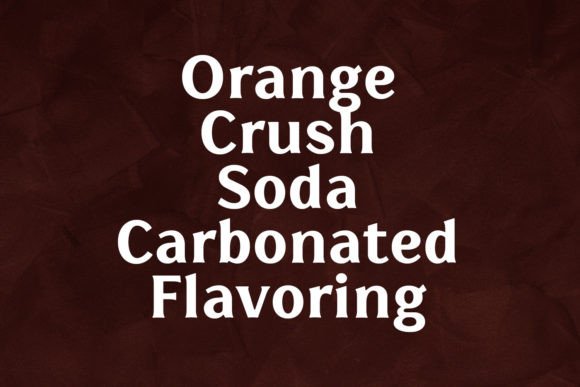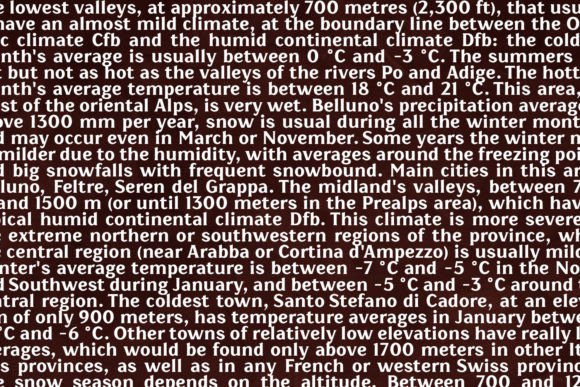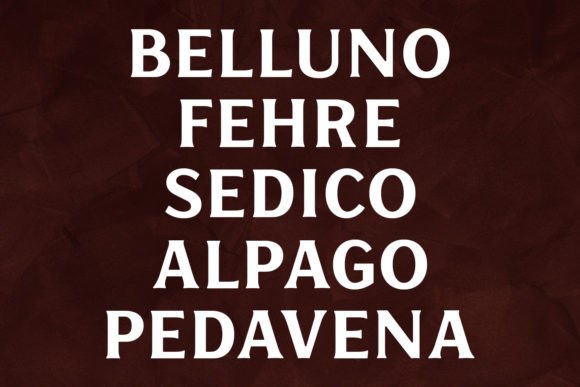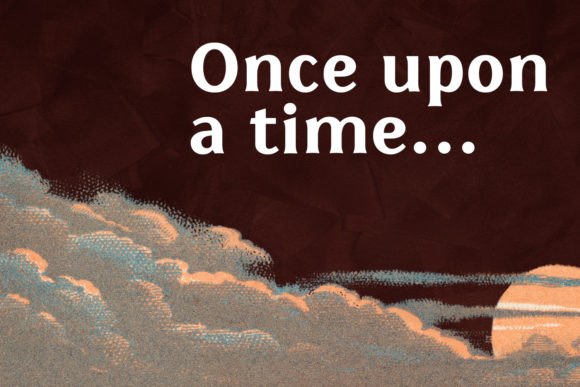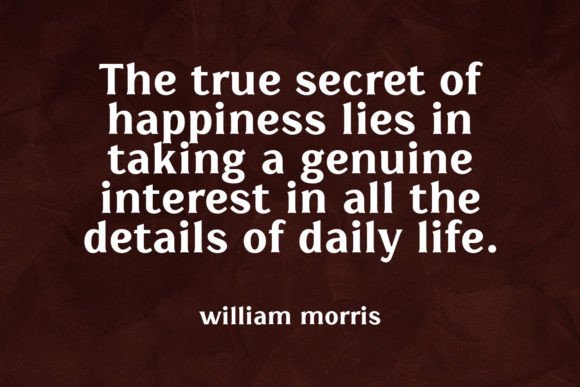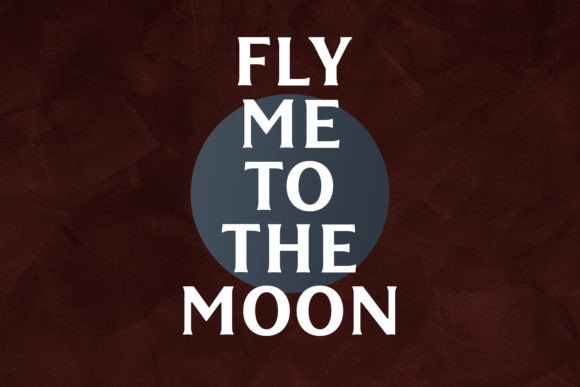
Introducing Falige Font: Elevate Your Designs with a Modern Twist
In the world of design, typography plays a crucial role in capturing the essence of a message. A font can make or break the visual appeal of a project, and that’s where Falige Font comes into play. With its modern, easy-to-spot aesthetic, Falige is poised to revolutionize the way you approach design. Whether you’re a seasoned designer or a crafty enthusiast, this versatile font is about to become your new best friend.
What is Falige Font?
Falige Font is a contemporary typeface that boasts a unique blend of style and legibility. Its clean lines, subtle curves, and carefully crafted letterforms make it an excellent choice for a wide range of applications. From magazines and crafts to invitations and social media posts, Falige is designed to adapt seamlessly to various design contexts.
Falige Features: What Sets it Apart
- Modern Aesthetic: Falige’s sleek design ensures that your work stands out in a crowded digital landscape. Its modern twist on classic typography principles makes it perfect for designers looking to infuse their projects with a fresh vibe.
- Ease of Recognition: The font’s easy-to-spot aesthetic is not just visually appealing; it’s also highly legible. This means that your message will be conveyed clearly, regardless of the medium or platform.
- Versatility: One of the key strengths of Falige Font is its versatility. It can be used across various mediums, including print and digital platforms, without losing its impact.
- Crafting and DIY Projects: For crafters and DIY enthusiasts, Falige offers a professional edge to handmade projects, such as invitations, greeting cards, and personalized gifts.
Why Choose Falige Font for Your Designs?
With an abundance of fonts available, why should Falige be your go-to choice? The answer lies in its ability to elevate your designs while offering flexibility and creativity. Here are a few compelling reasons:
- Enhance Readability: Falige’s design prioritizes readability, ensuring that your audience can easily digest the information you’re presenting.
- Express Your Creativity: The font’s modern aesthetic provides a perfect canvas for expressing your creativity. Whether you’re working on a branding project or a personal craft, Falige adapts to your vision.
- Save Time: With Falige, you can achieve professional-looking results without spending hours searching for the perfect font or tweaking settings.
Using Falige Font: Tips and Tricks
To make the most of Falige Font, consider the following tips:
- Pair it Wisely: Experiment with font pairings to create visual interest. Falige works well with both serif and sans-serif fonts, offering endless possibilities.
- Adjust Size and Weight: Play with different sizes and weights of Falige to create hierarchy and emphasis in your designs.
- Explore Digital Applications: Don’t limit Falige to print. Its digital-friendly design makes it perfect for social media graphics, website headers, and more.
Falige Font is more than just a typeface; it’s a design companion that can help you bring your creative visions to life. Its modern aesthetic, coupled with its versatility and legibility, makes it an indispensable tool for designers and crafters alike. Whether you’re looking to elevate your professional projects or add a touch of sophistication to your personal crafts, Falige is the perfect choice. So, why wait? Dive into the world of Falige Font today and discover a new dimension of design possibilities.